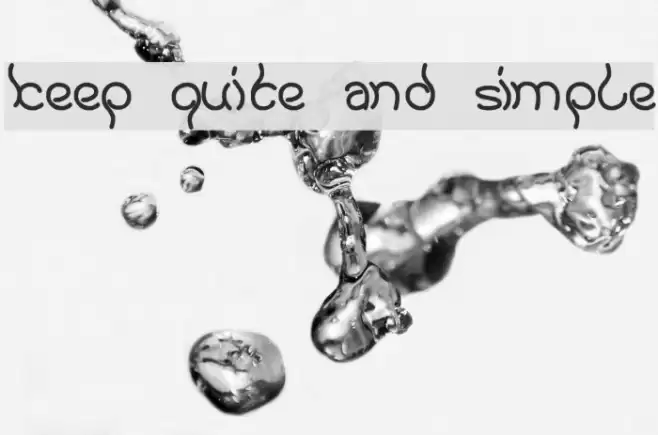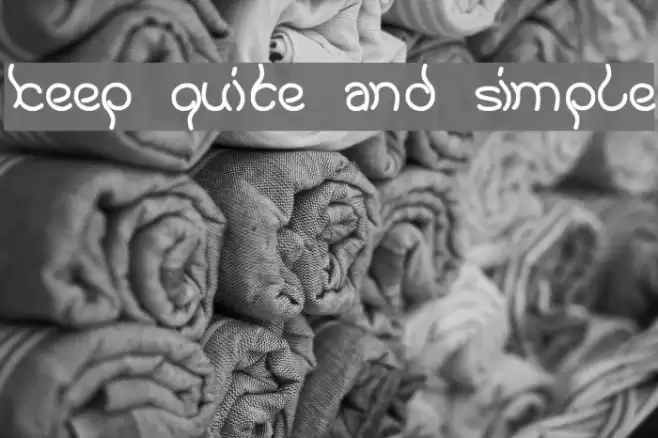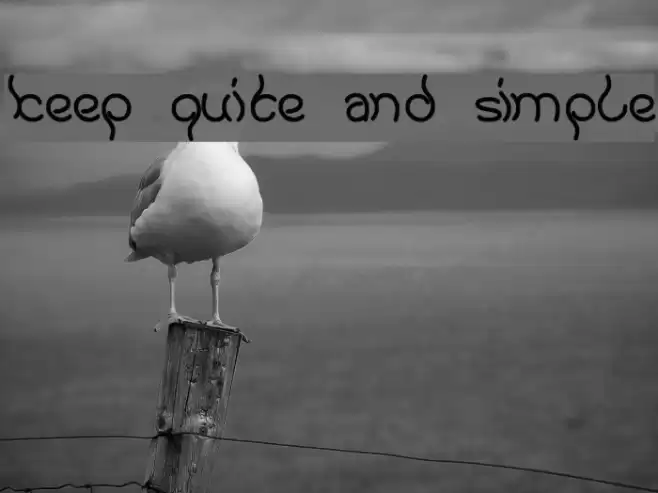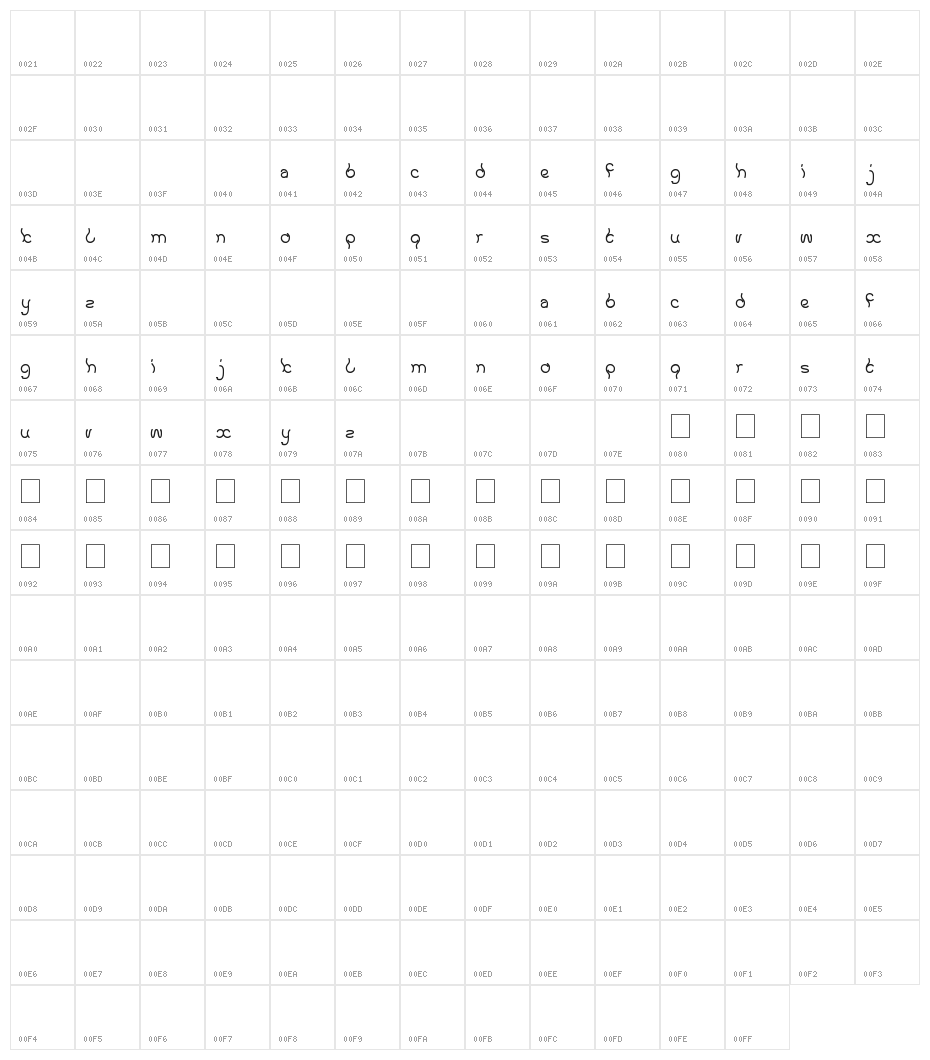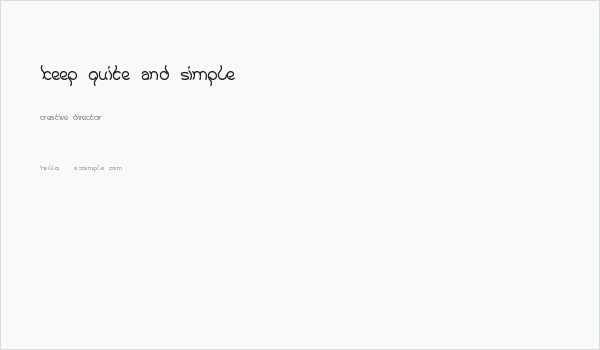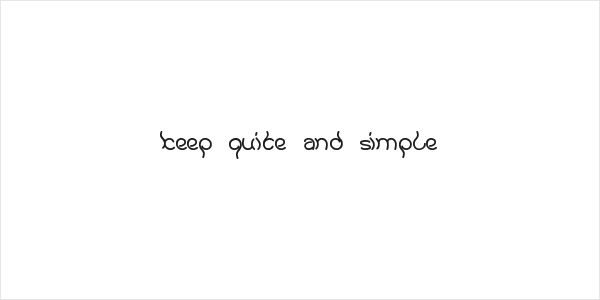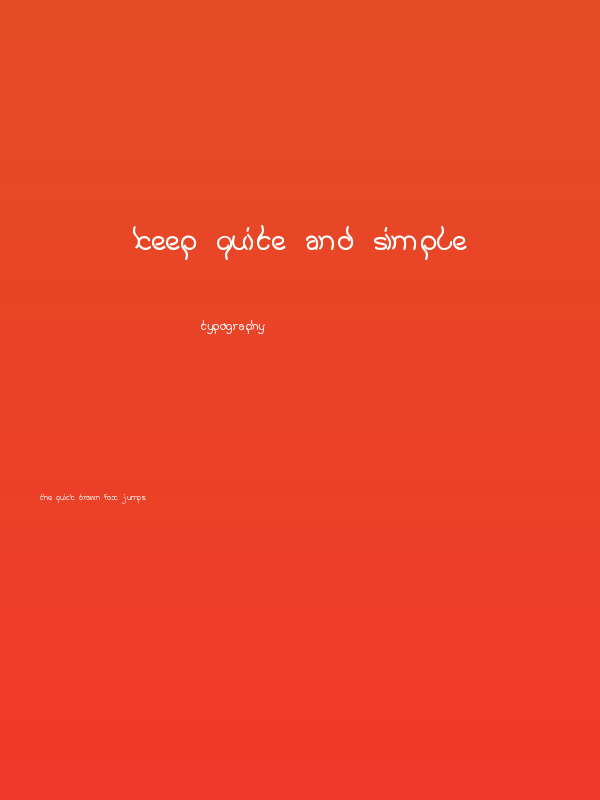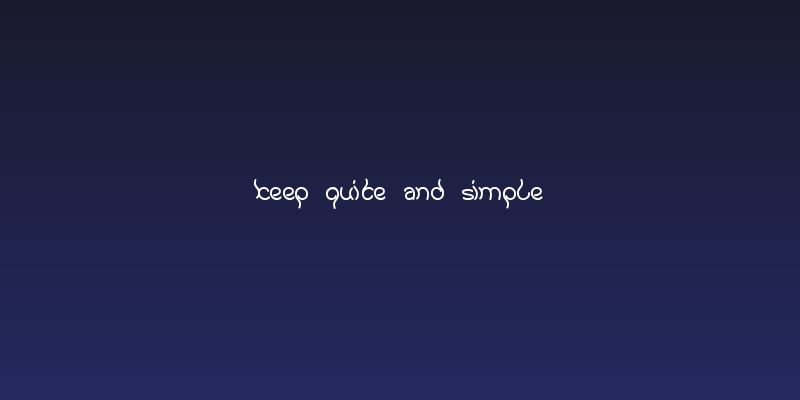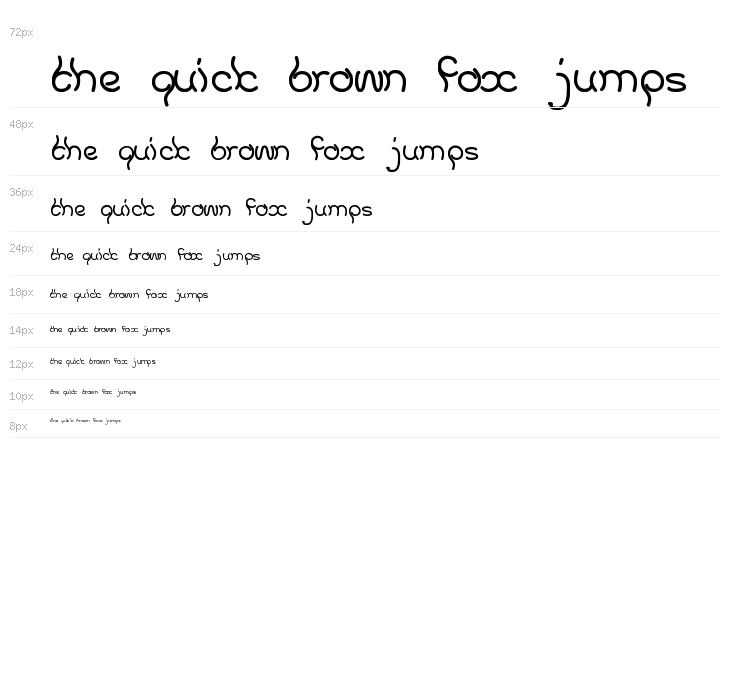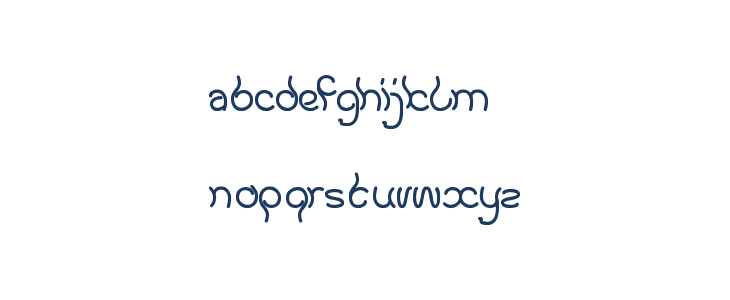
keep quite and simple Font
keep quite and simple Description
This font features a unique and playful design with a handwritten style. The letters are characterized by their rounded and flowing forms, giving a whimsical and artistic feel. The lowercase letters exhibit a consistent height and maintain a smooth, continuous stroke, enhancing the font's fluidity. The overall appearance is casual yet distinctive, making it suitable for creative and informal applications. The font's design is consistent across both uppercase and lowercase letters, ensuring readability while maintaining its artistic flair.
A playful, handwritten font with rounded, flowing forms from Uncategorized fonts.
- Proposed Projects: Ideal for greeting cards, children's books, creative posters, and playful branding projects.
- Use Case: Logos, Headlines, Creative projects